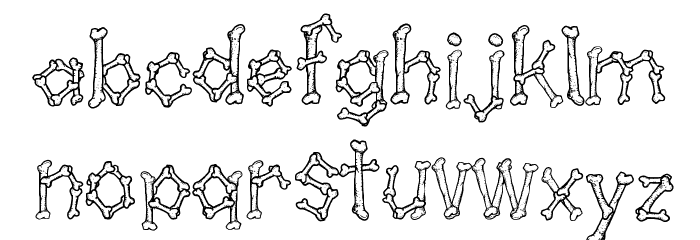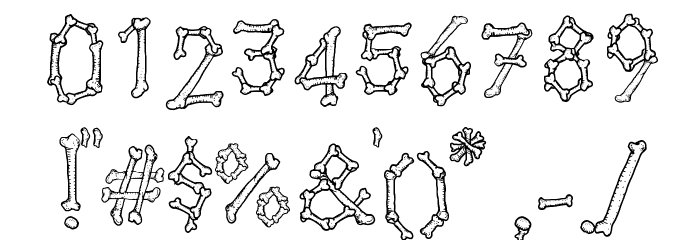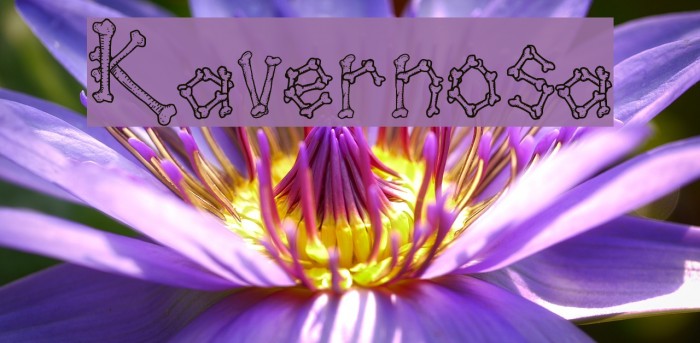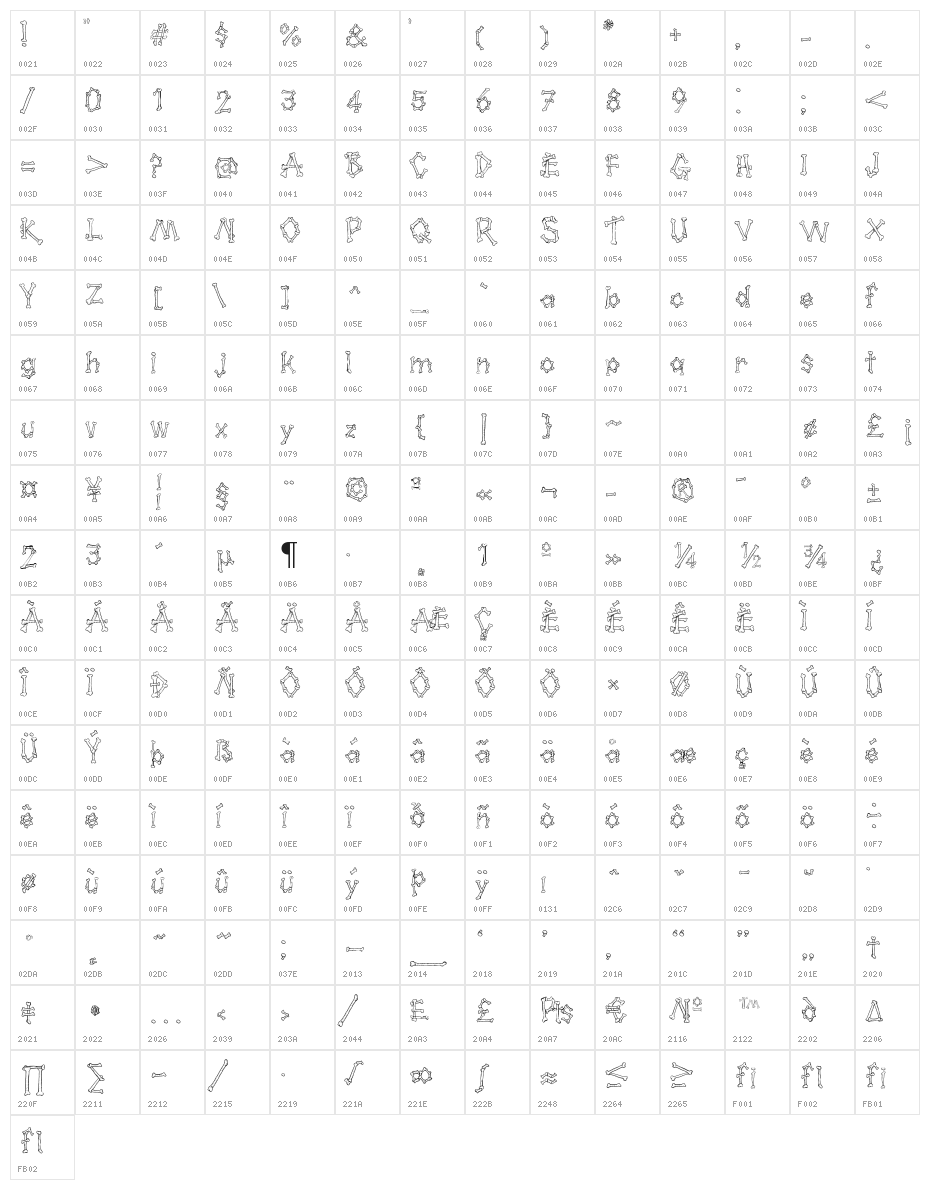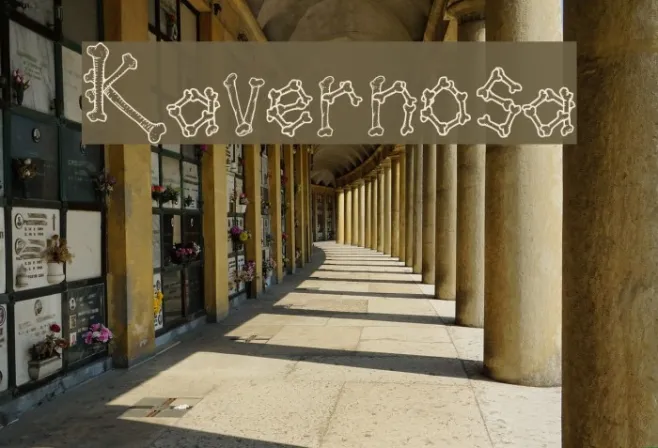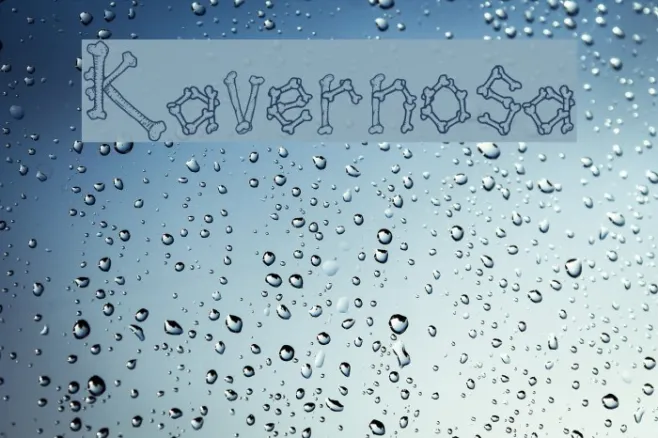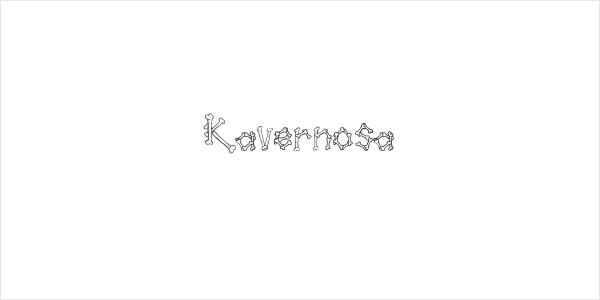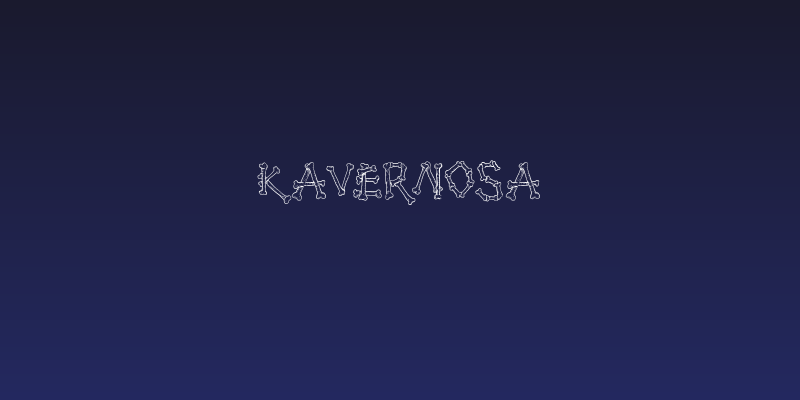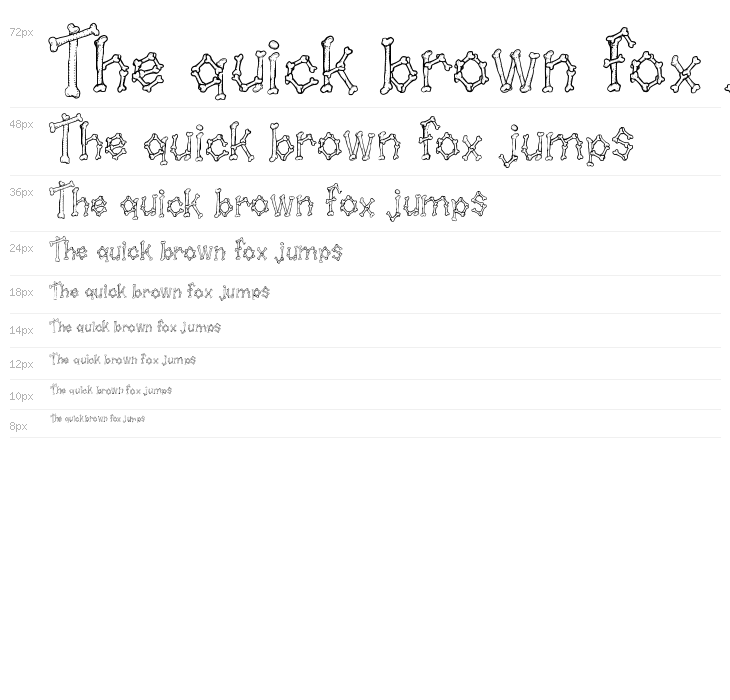
Kavernosa Font
This font features a unique and playful design, with each character resembling a collection of bones or skeletal structures. The letters are crafted with a hand-drawn aesthetic, giving them an organic and slightly irregular appearance. The intricate detailing within each character adds depth and texture, making it visually engaging. This font is particularly suited for themes related to Halloween, horror, or anything that requires a spooky or quirky touch. Its decorative nature makes it stand out, but it may not be suitable for body text due to its complexity.
A playful, bone-like decorative font with a hand-drawn aesthetic.
- Proposed Projects: Ideal for Halloween-themed designs, horror movie posters, children's spooky storybooks, or any project needing a quirky, eerie touch.
- Use Case: Headlines, Logos, Themed Invitations